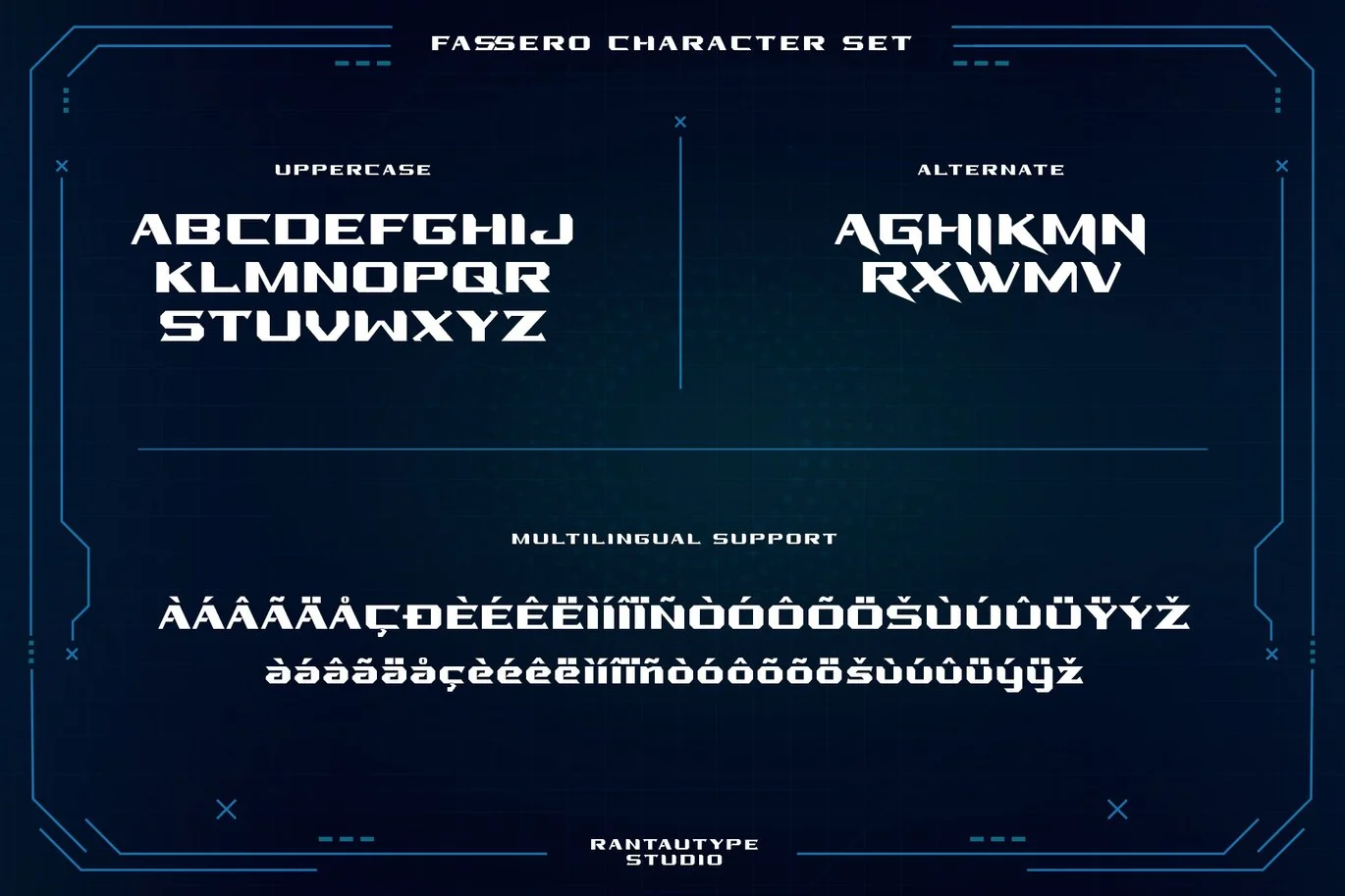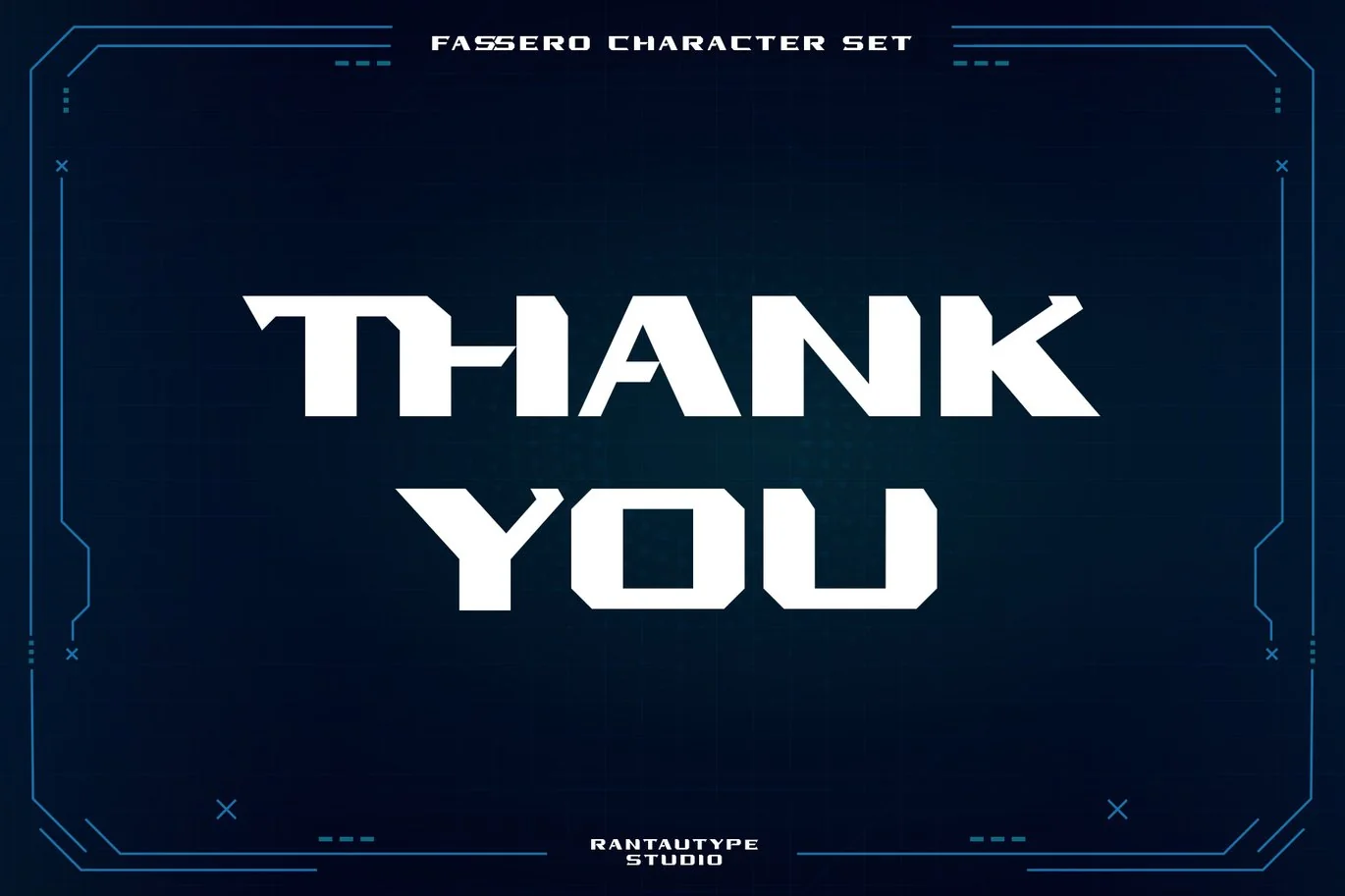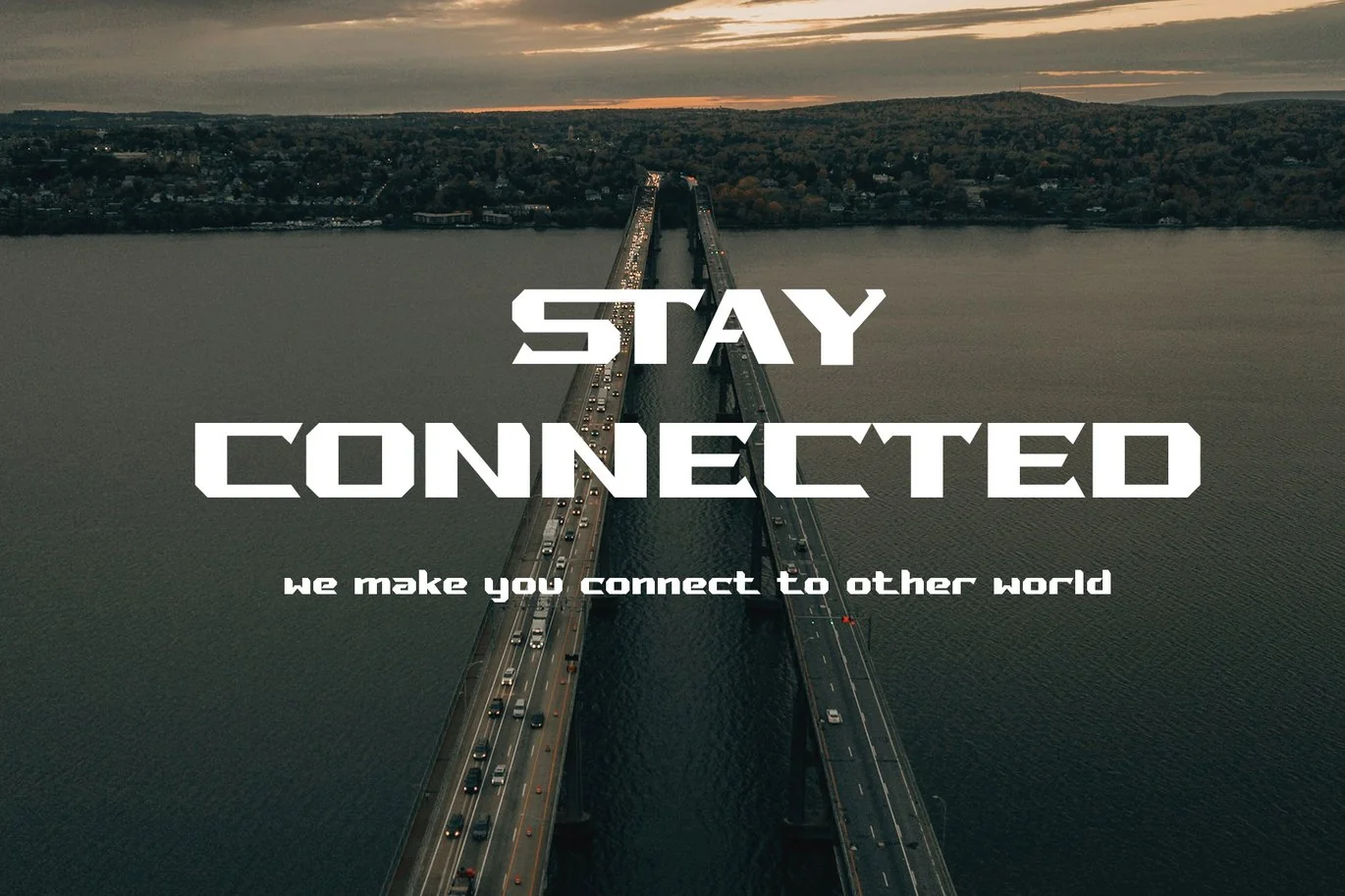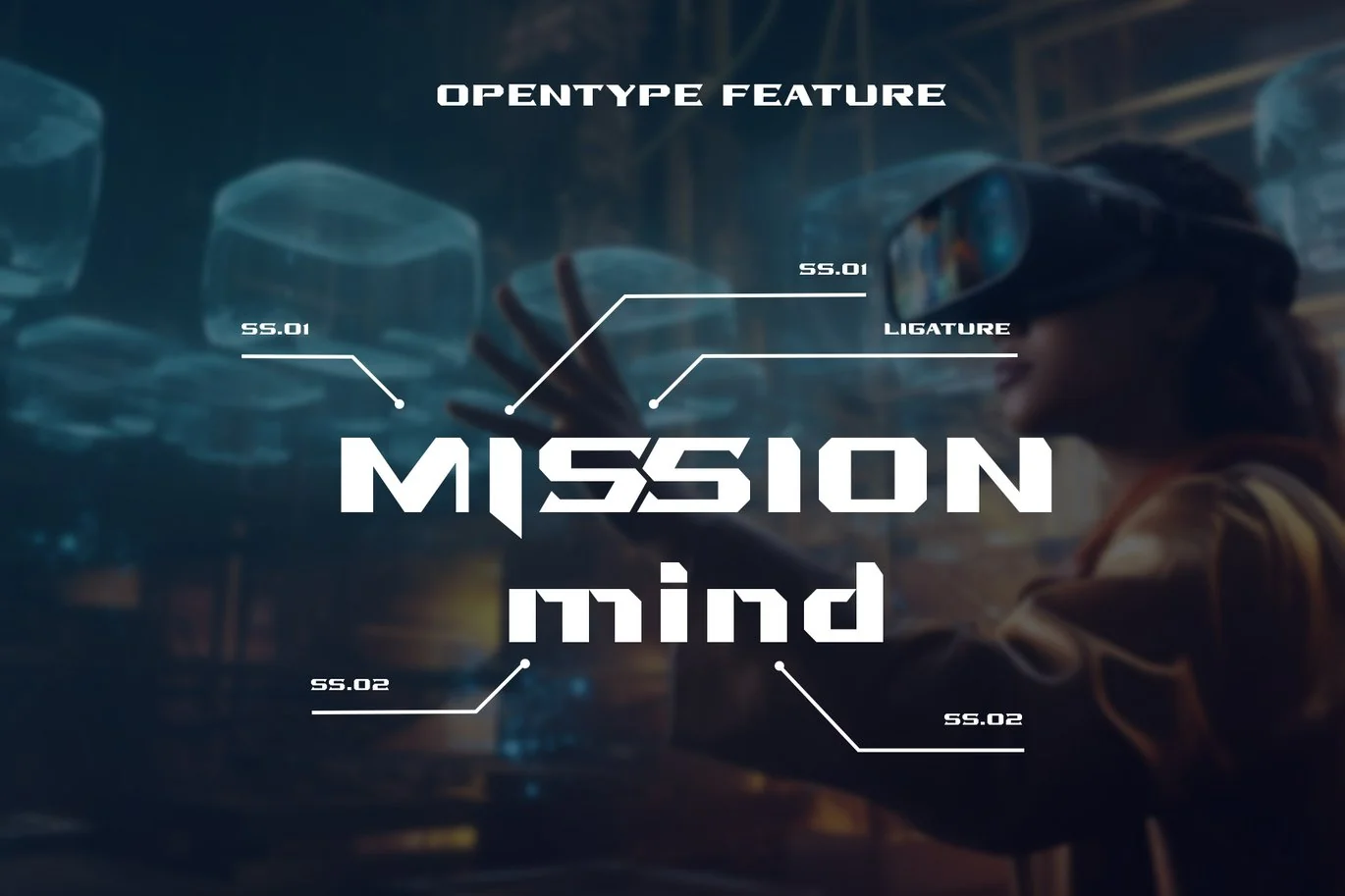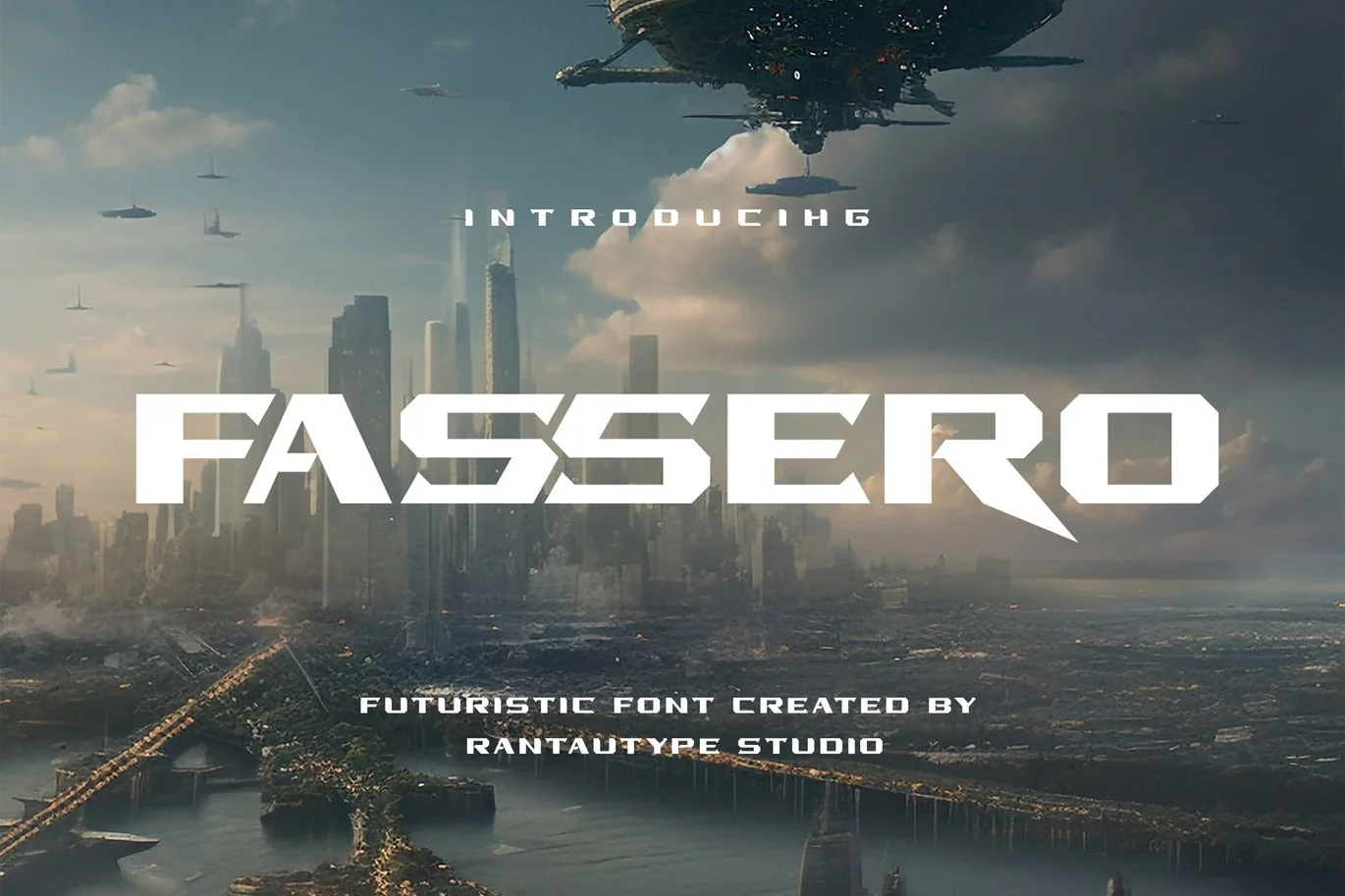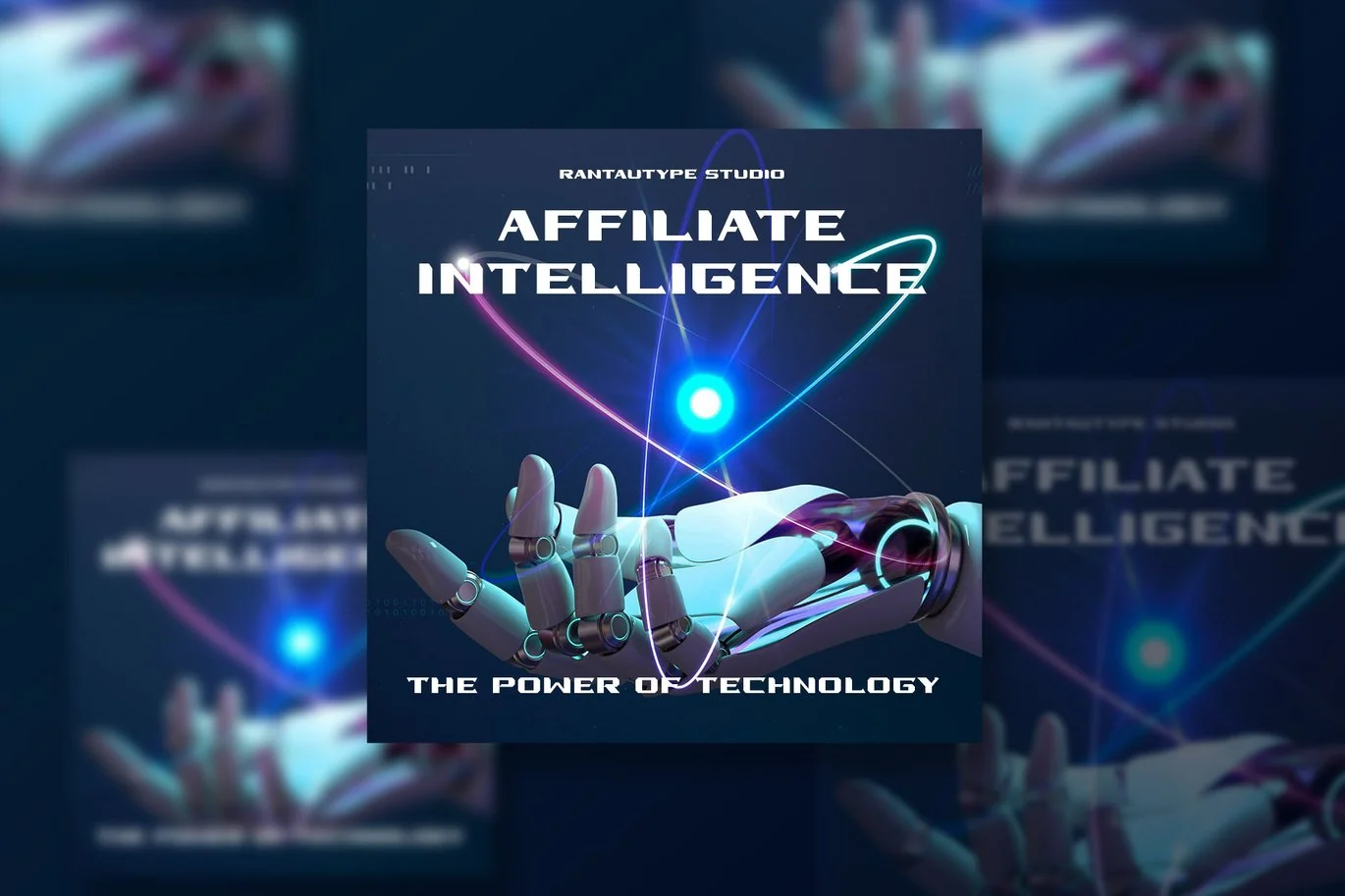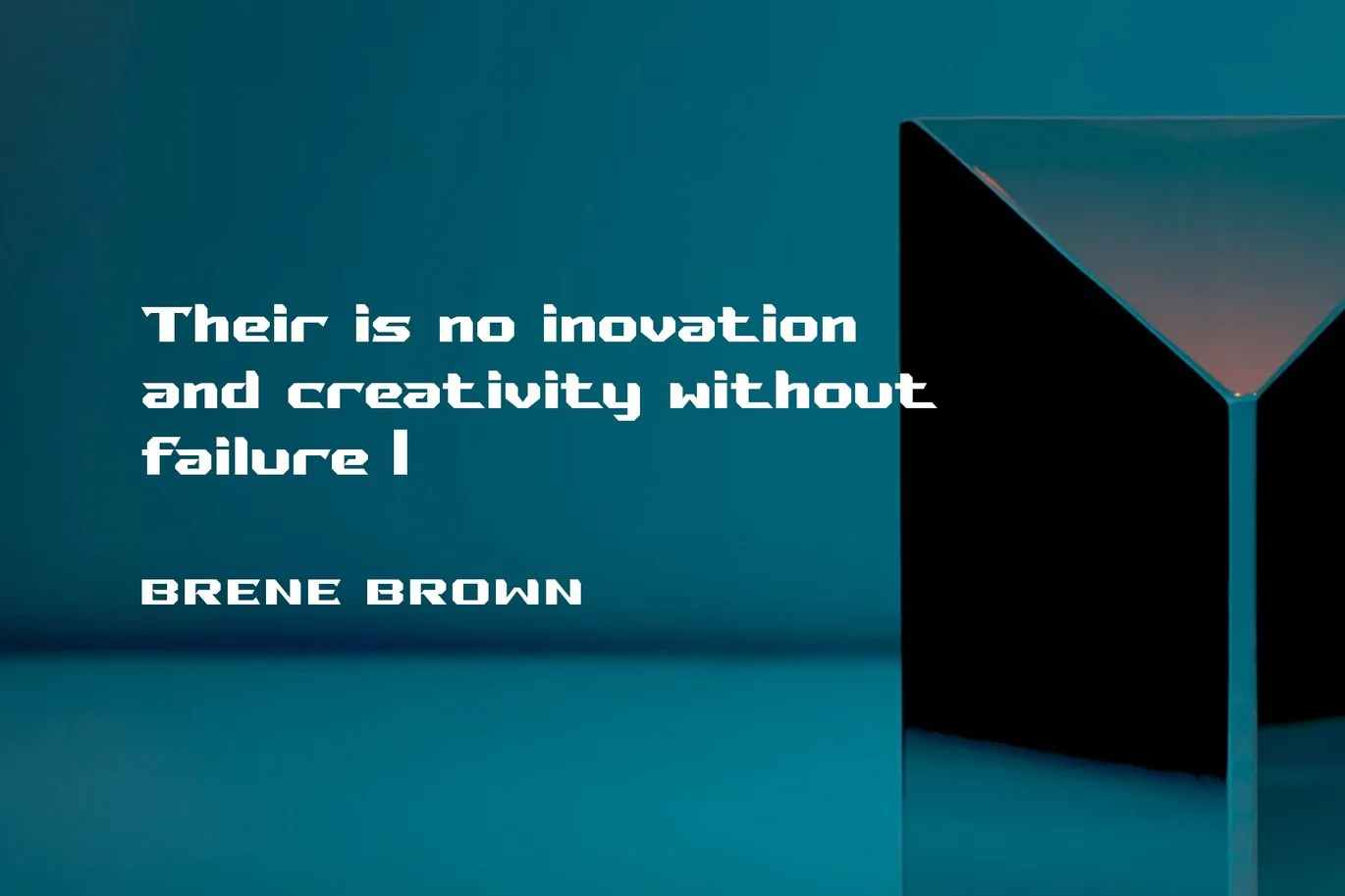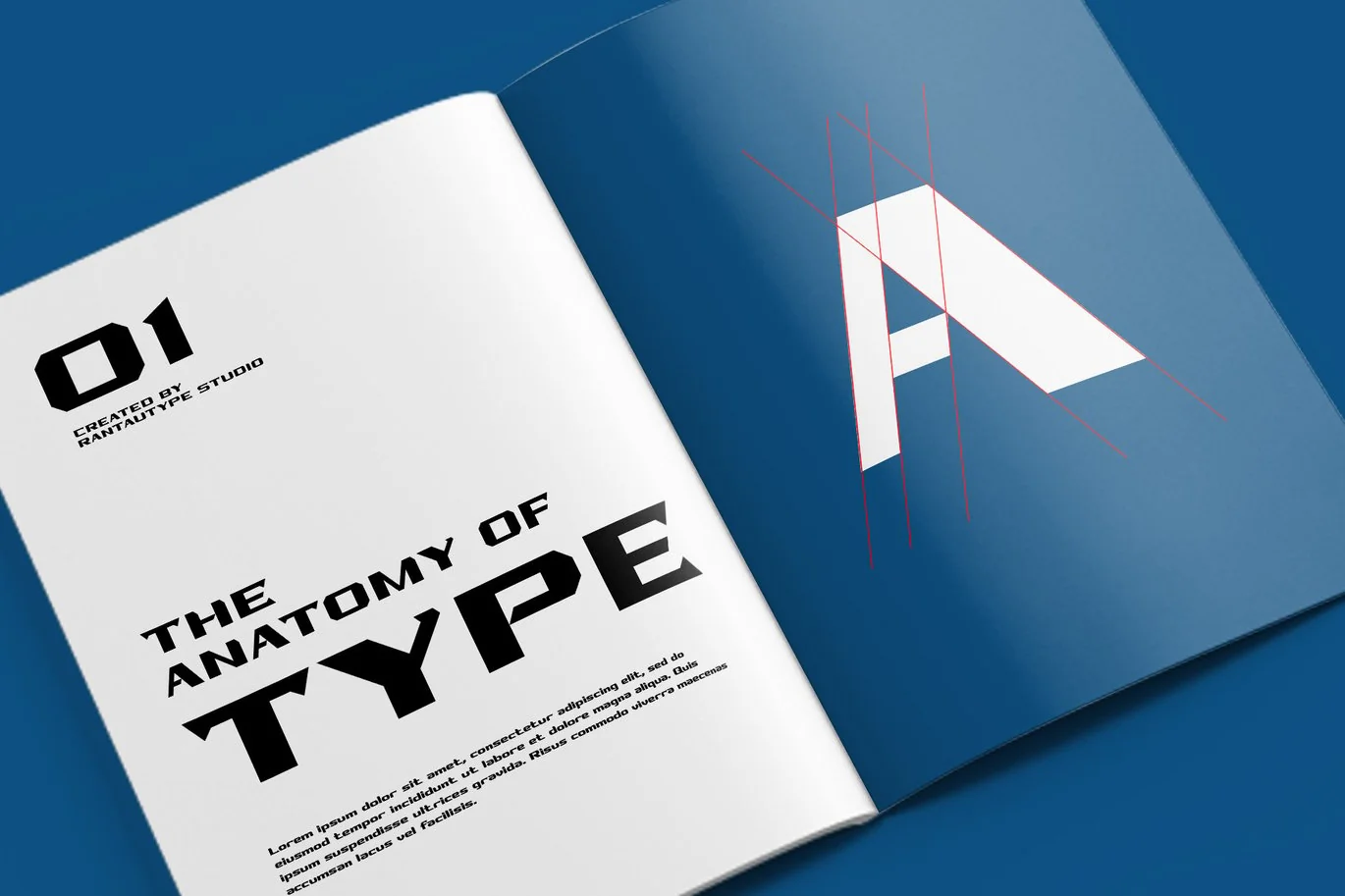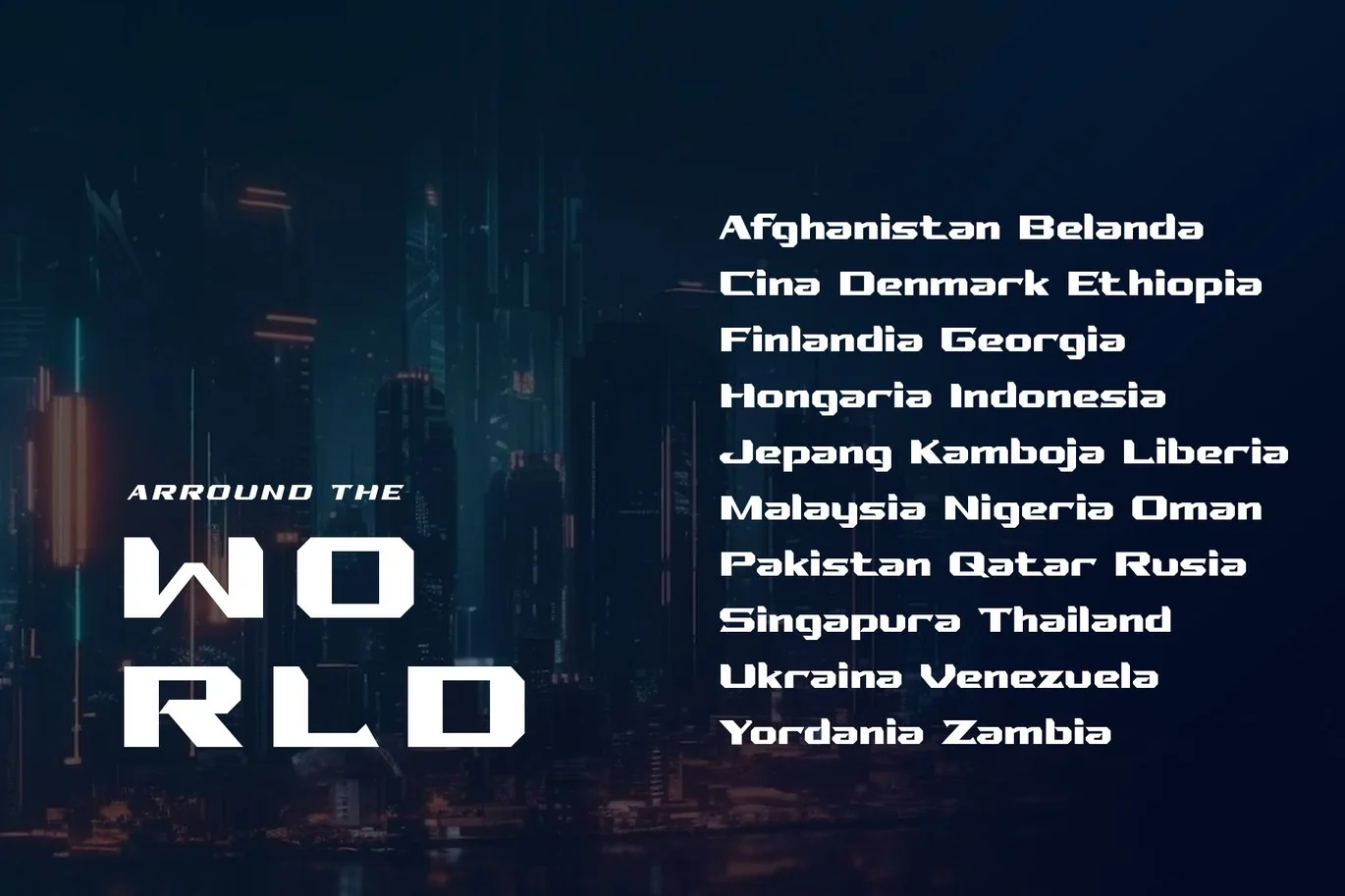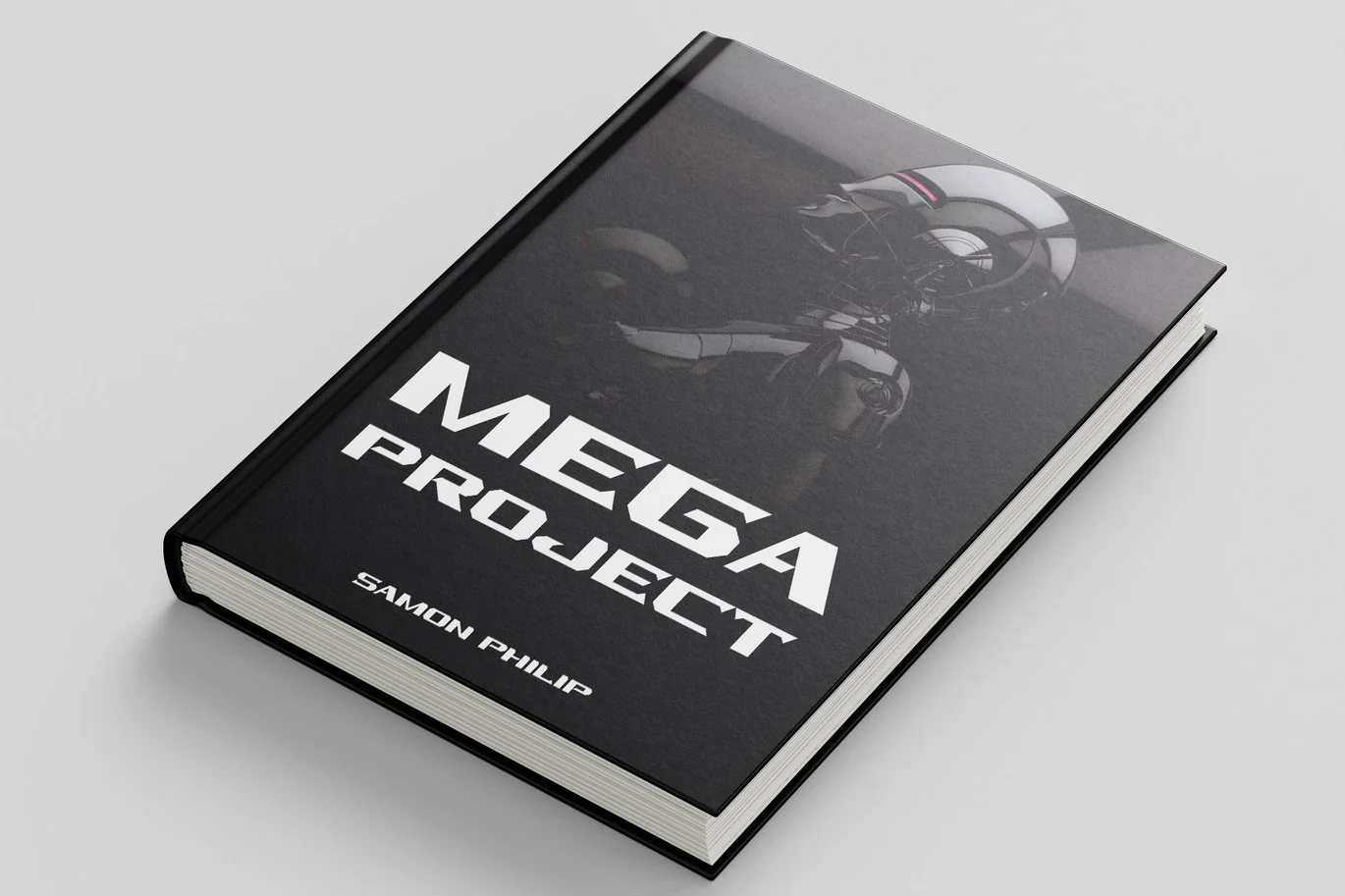
Fassero Futuristic Font
Fasseo is strong and bold font it’s inspired by futuristic font. Formed from a unique shape make this font Modern and sophisticated. Fassero come with alternate, ligature and support multilingual accent support.
Fasseo is a futuristic choice for any creative endeavor, creating modern, chic, lifestyle design such as logos, title, cover, film or movie, branding, display and magazine and more design with futuristic concept.
- Standar character A-Z and a-z
Fonts include Multilingual Support for: Afrikaans, Albanian, Asu, Basque, Bemba, Bena, Breton, Chiga, Cornish, Dutch, English, Estonian, Filipino, Finnish, Friulian, Galician, Gusii, Indonesian, Irish, Italian, Kabuverdianu, Kalenjin, Kinyarwanda, Luo, Luxembourgish, Luyia, Machame, Makhuwa-Meetto, Makonde, Malagasy, Manx, Morisyen, North, Ndebele, Nyankole, Oromo, Portuguese, Quechua, Romansh, Rombo, Rundi, Rwa, Samburu, Sango, Sangu, Scottish, Gaelic, Sena, Shambala, Shona, Soga, Somali, Spanish, Swahili, Swedish, Swiss, German.